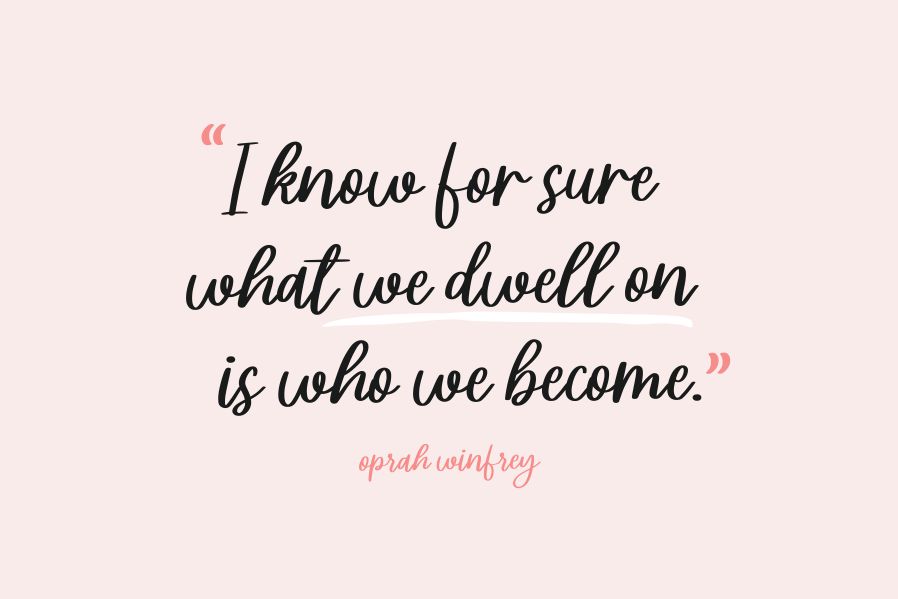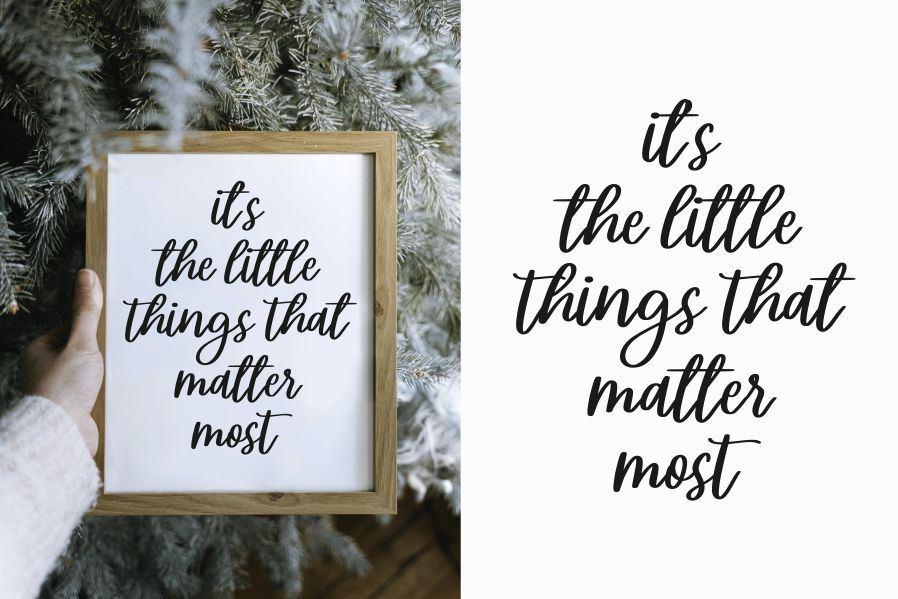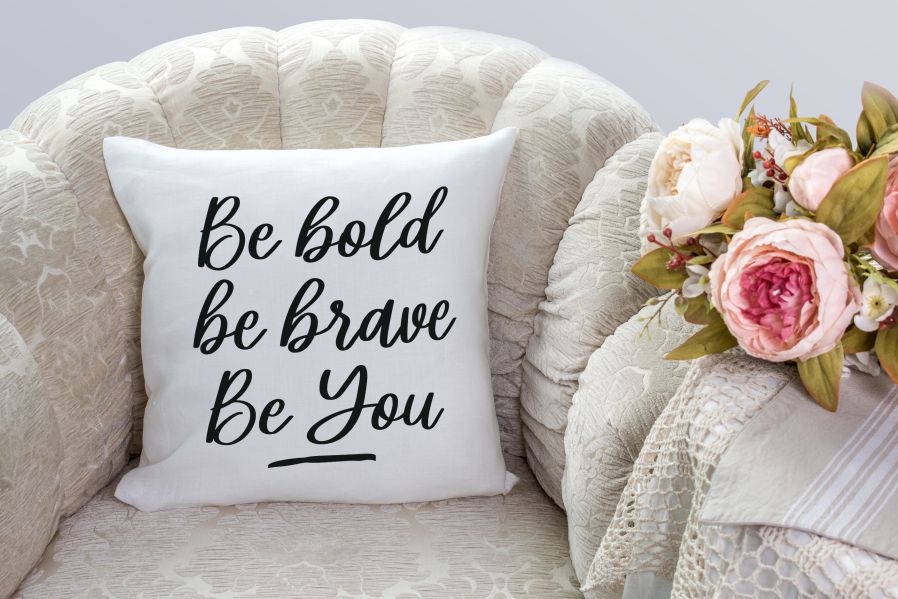
Steally Grace Script Font
This is a cursive script font carefully created with a touch of elegance. Whether you’re looking for fonts for Instagram or calligraphy scripts for DIY projects, this font will turn any creative idea into a true piece of art!